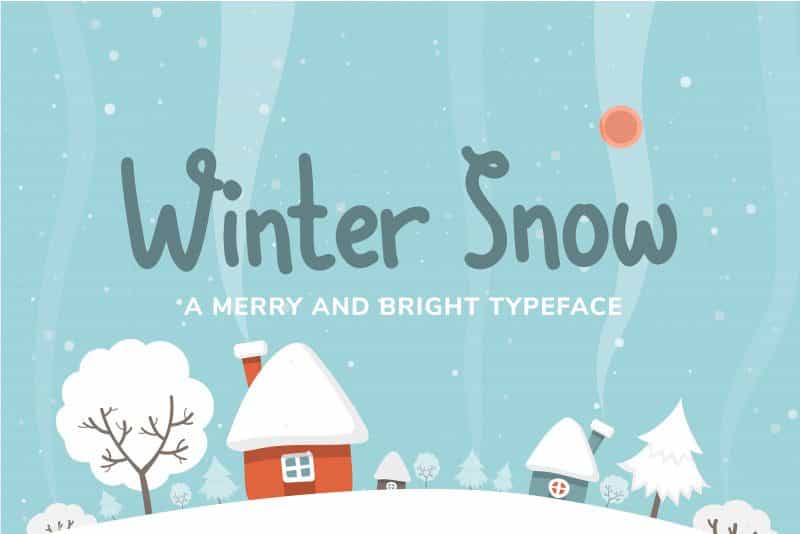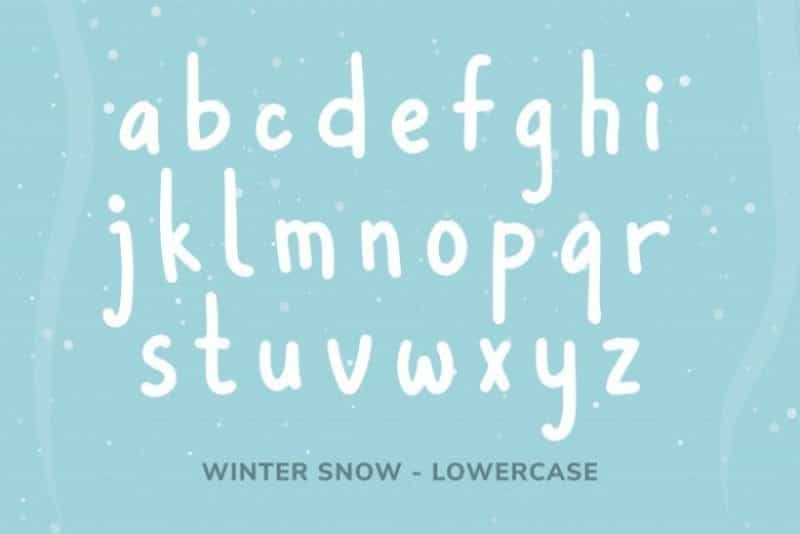
Discover Winter Snow Font, part of the Sans Serif Brush collection—a versatile and unique font perfect for adding a personal touch to your projects. Download it for free and enjoy crafting designs with style, from invitations to social media posts. This font is available exclusively for personal use, giving you the freedom to create without limits. Unlock your creativity with Winter Snow Font today!
Winter Snow is a festive and friendly display font. This is perfect for any holiday craft that you might be planning on doing in your home!